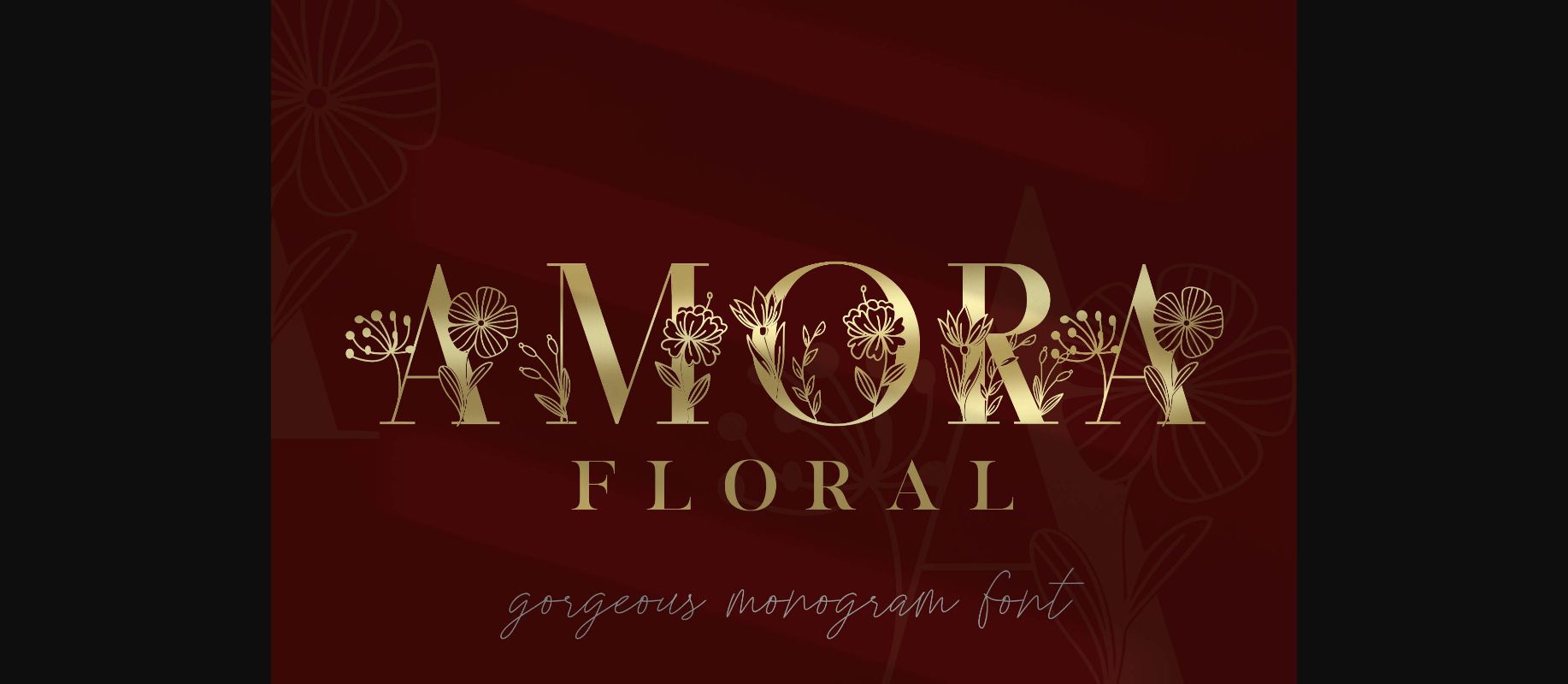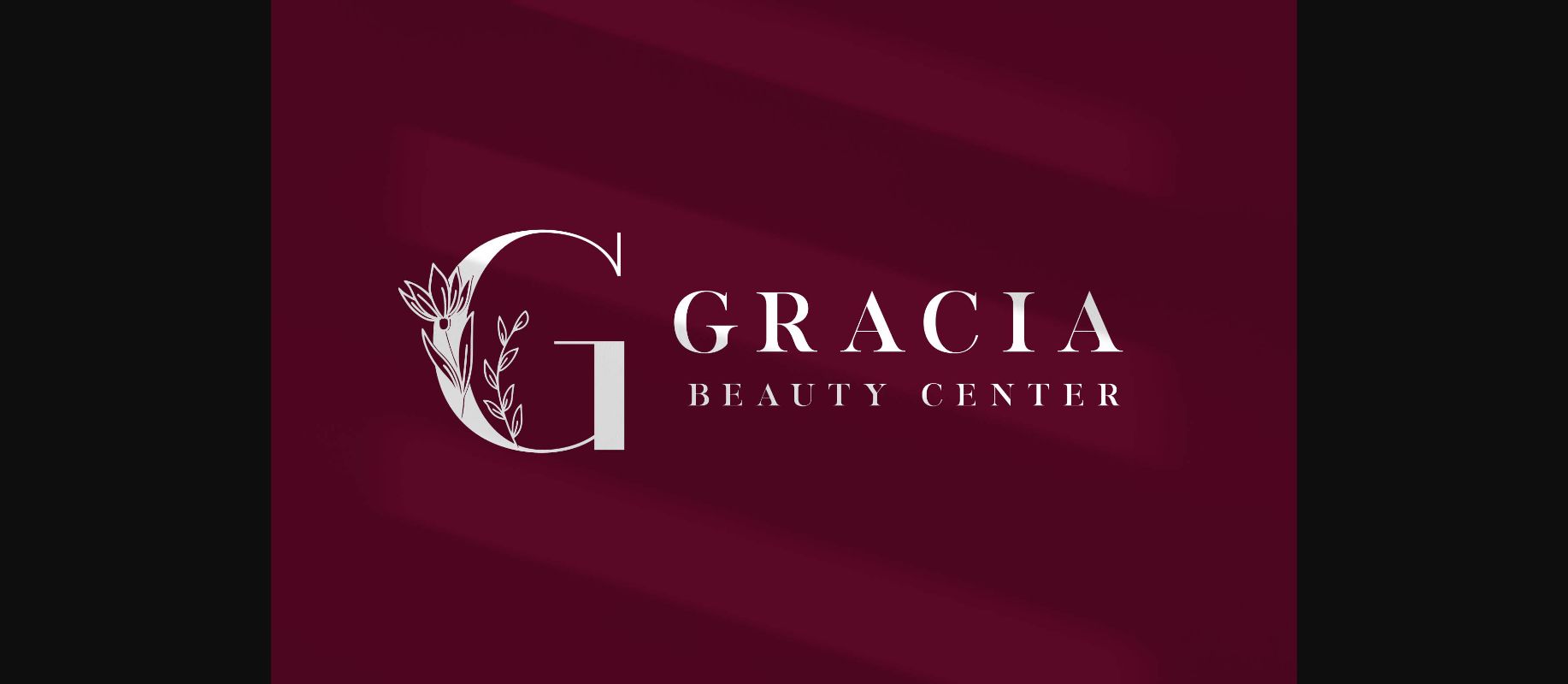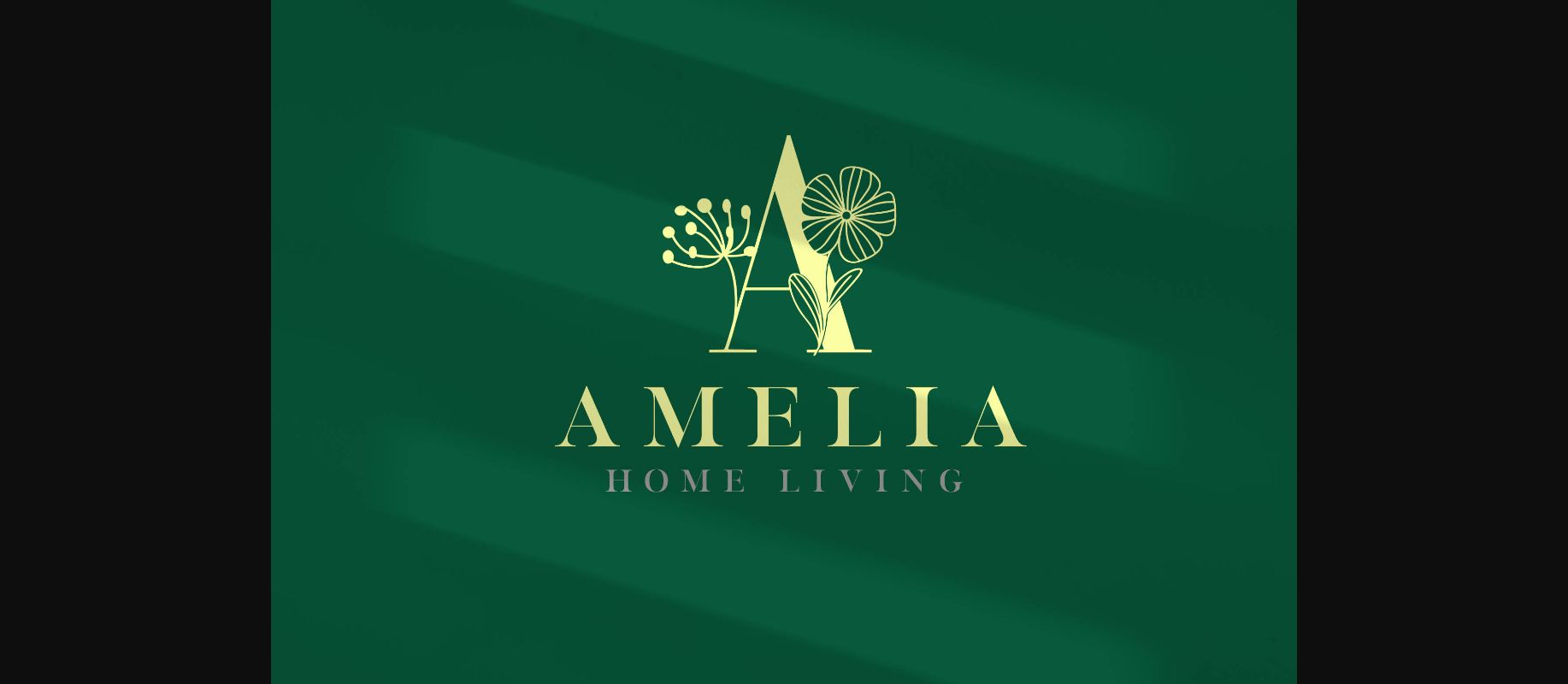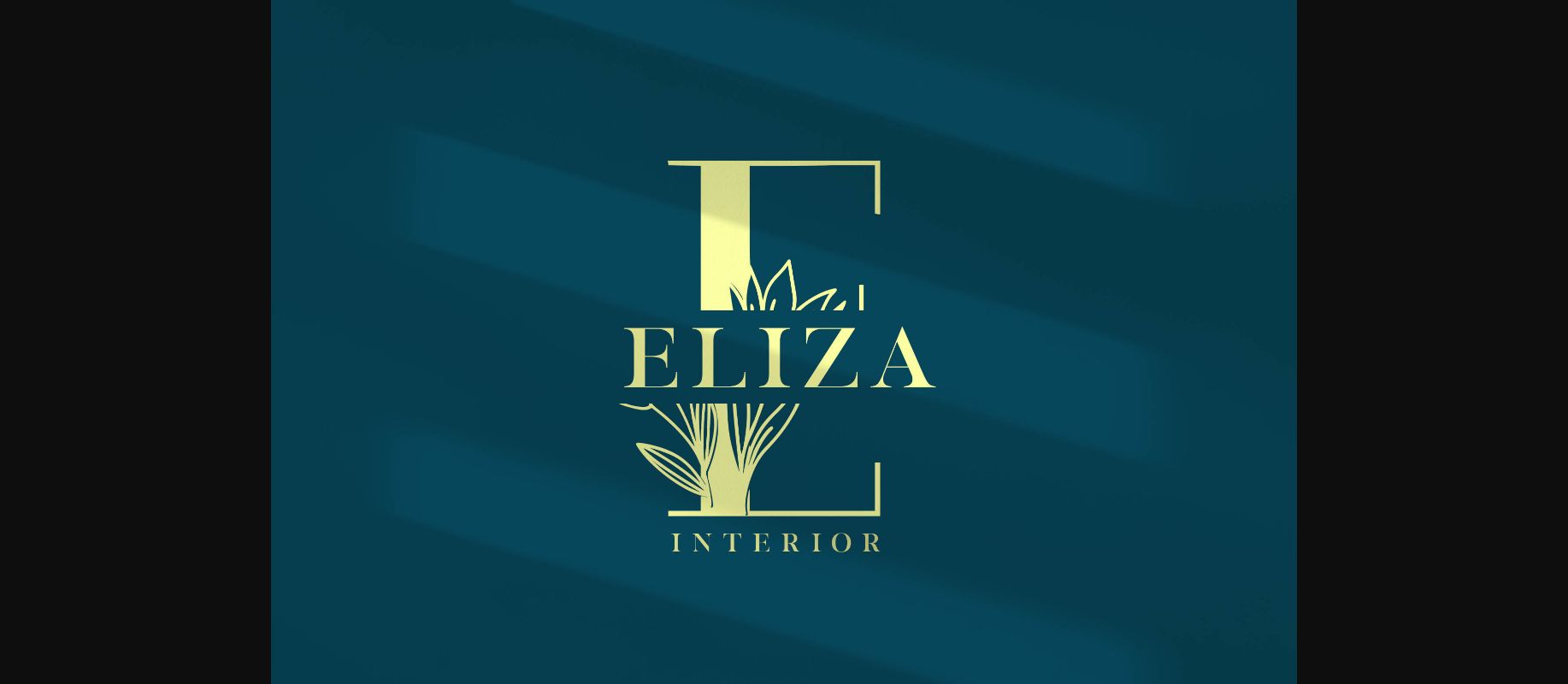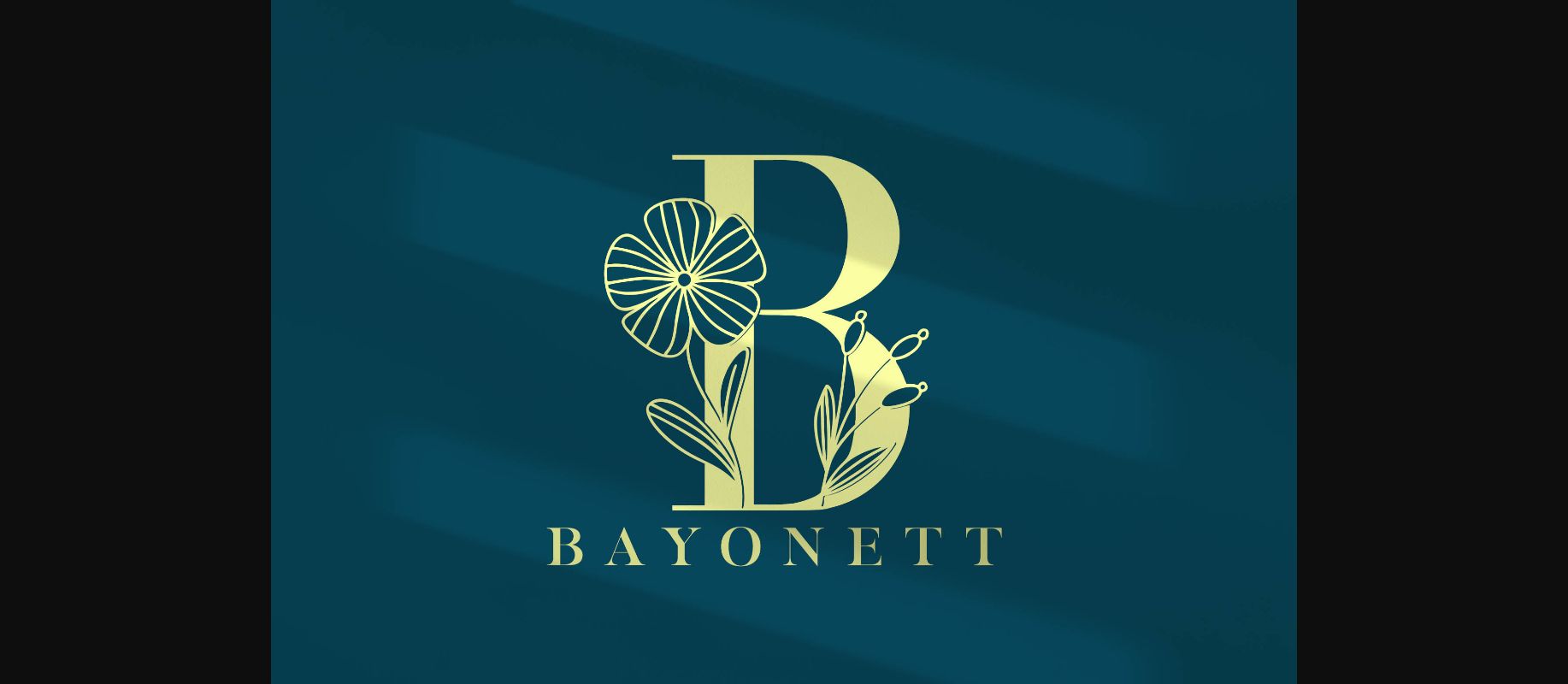
Amora Elegant Monogram Font
About Amora Elegant Monogram Font
Amora Elegant Monogram is a dainty and unique decorative font. Add this romantic and lovely looking font to each of your love letters, wedding invitations or favorite design ideas, and you will be astounded by the outcome.